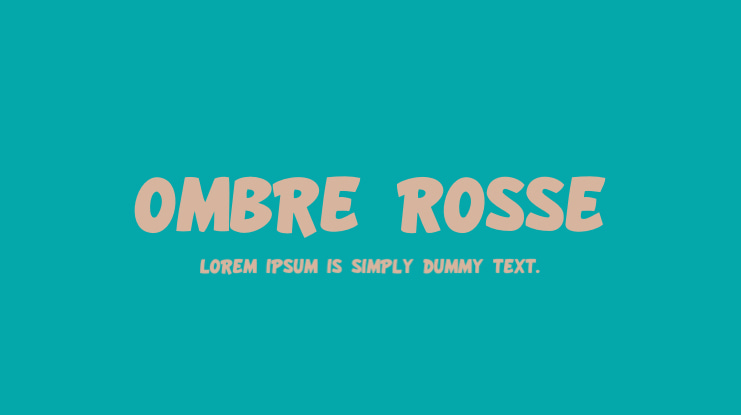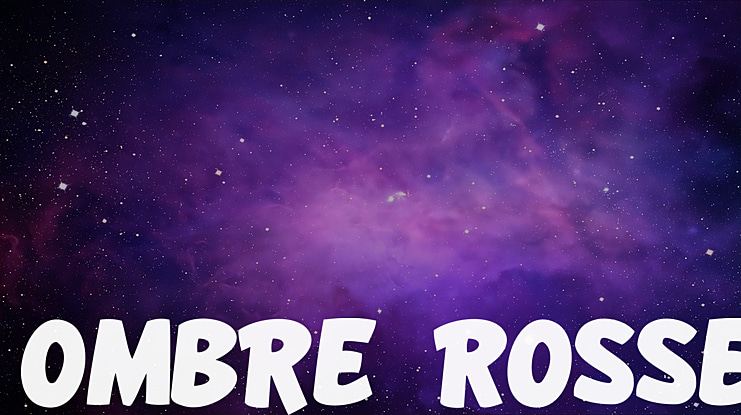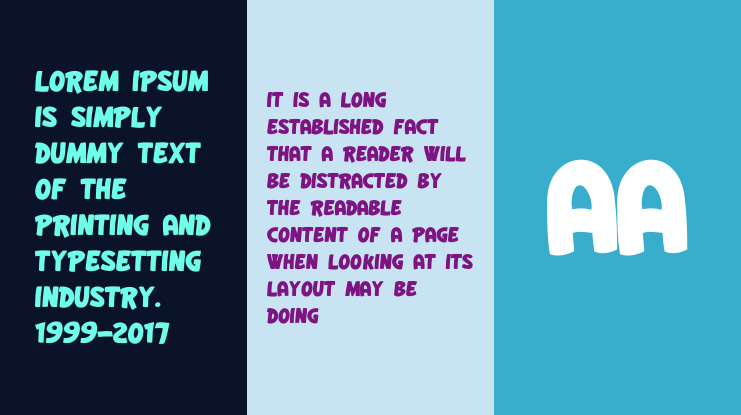
Ombre Rosse Font Family
P. A. Vannucci
Directly from the film directed by Billy Wilder and starring Marilyn Monroe, the new font for all admirers of the film.
Direttamente dal film diretto da Billy Wilder e interpretato da Marilyn Monroe, il font inedito per tutti gli estimatori del film.